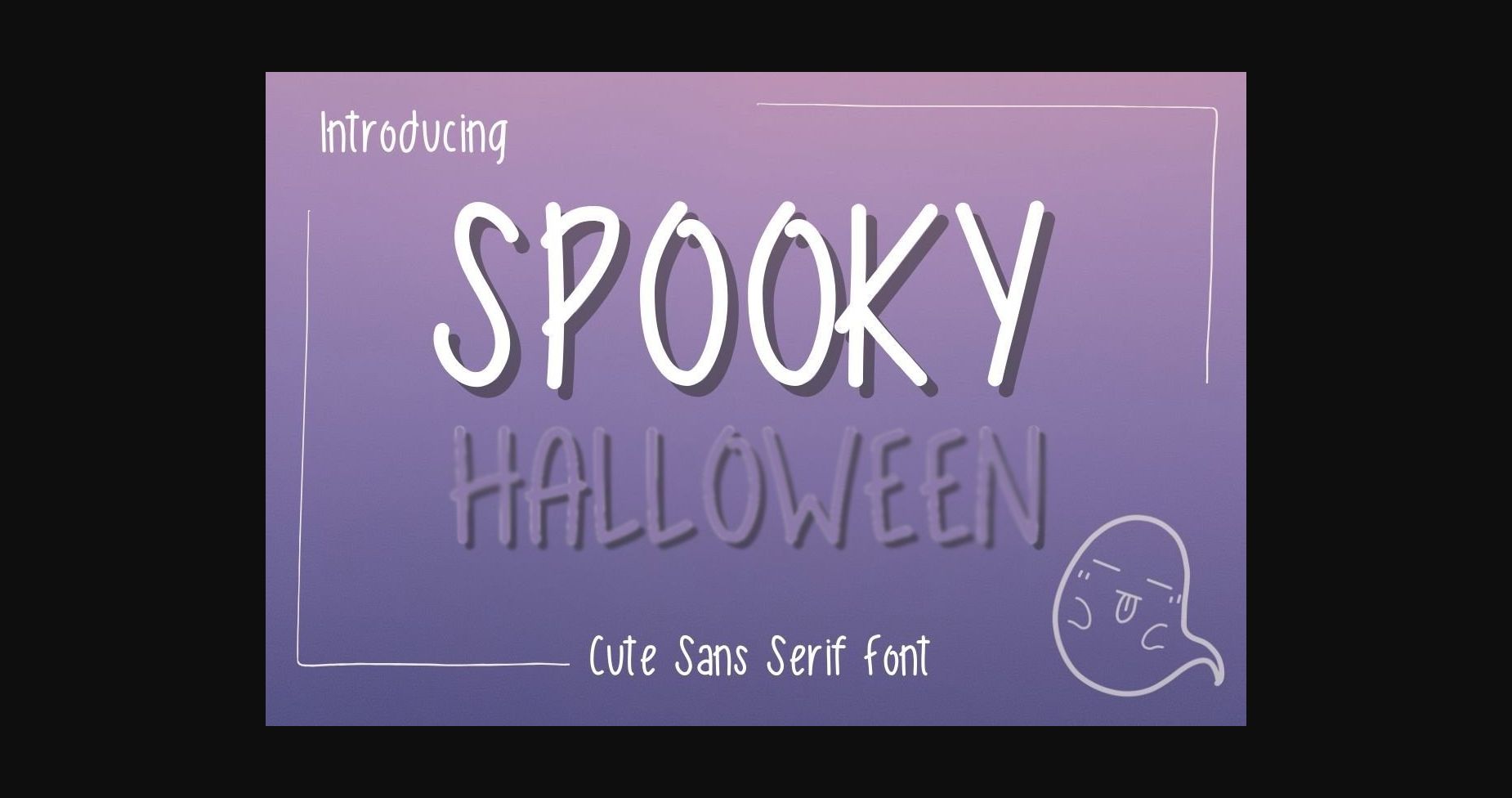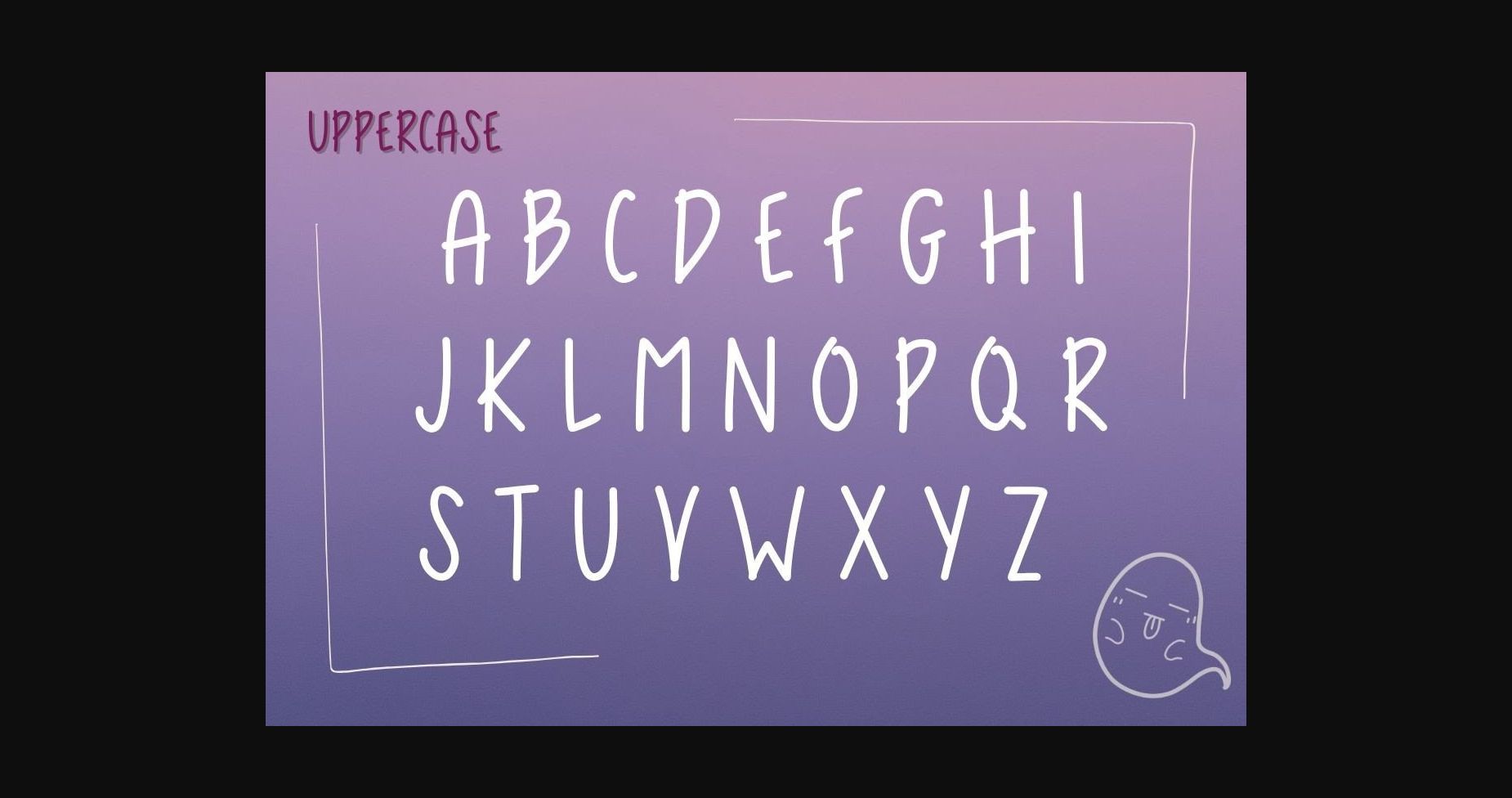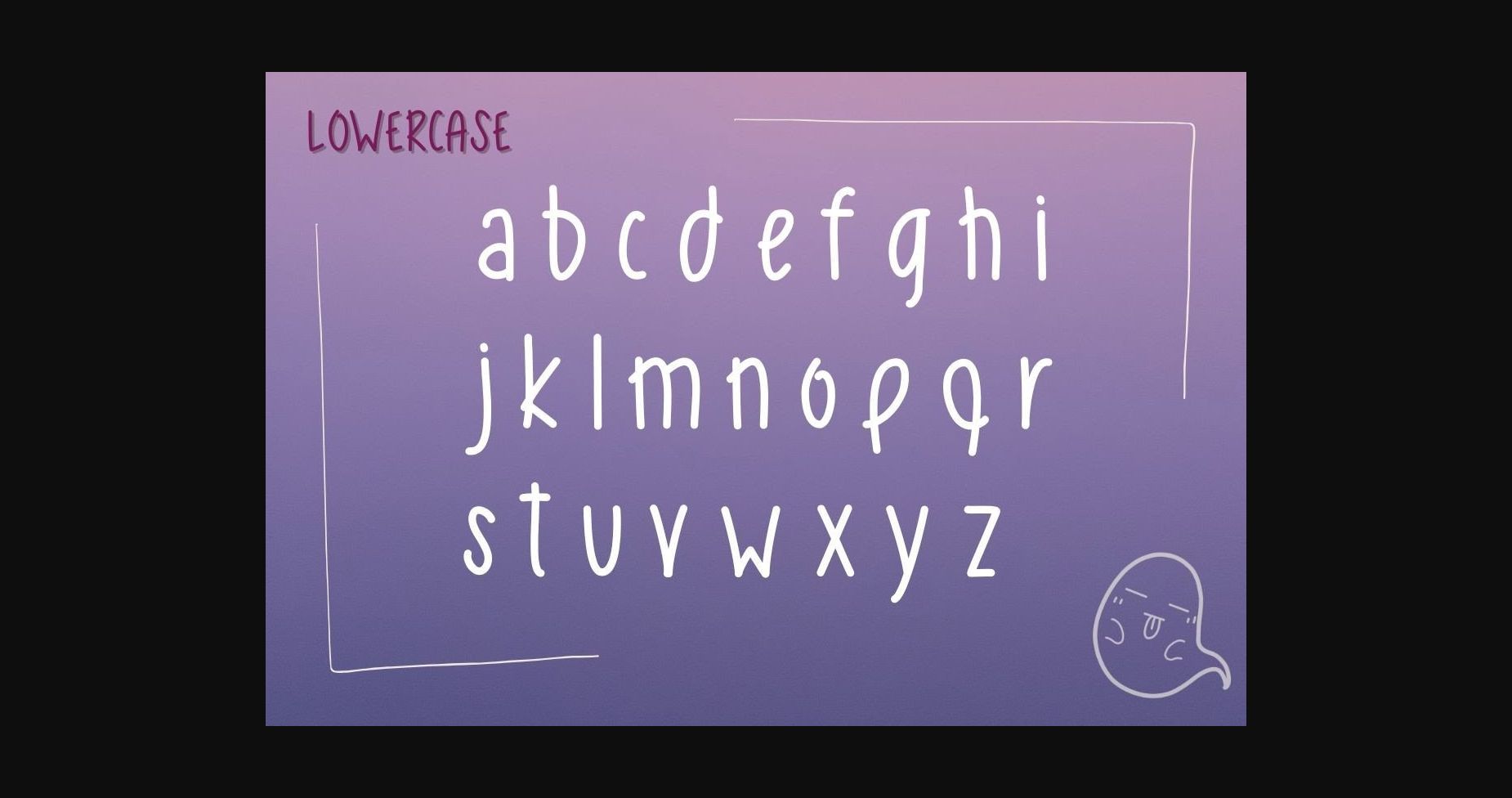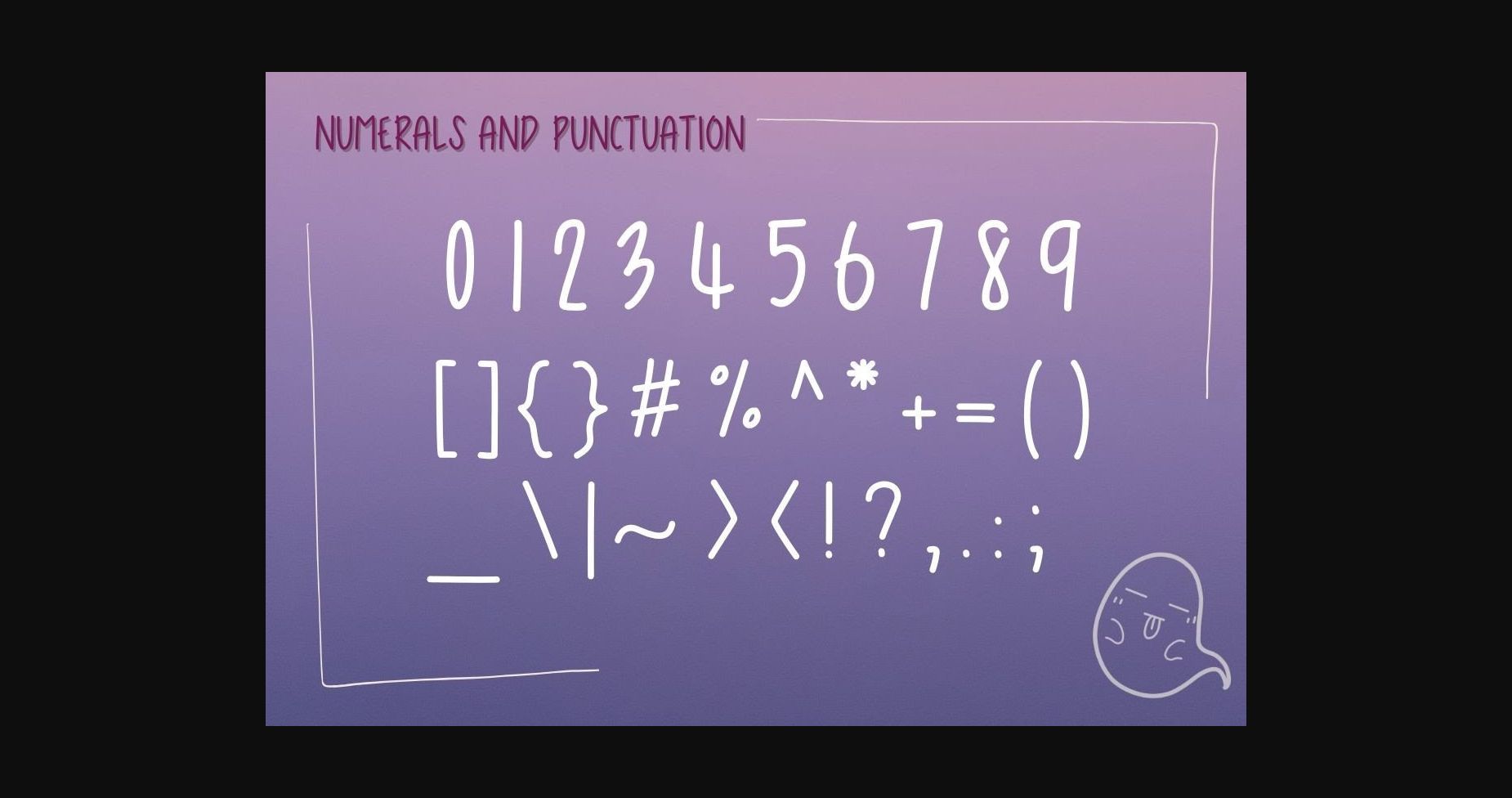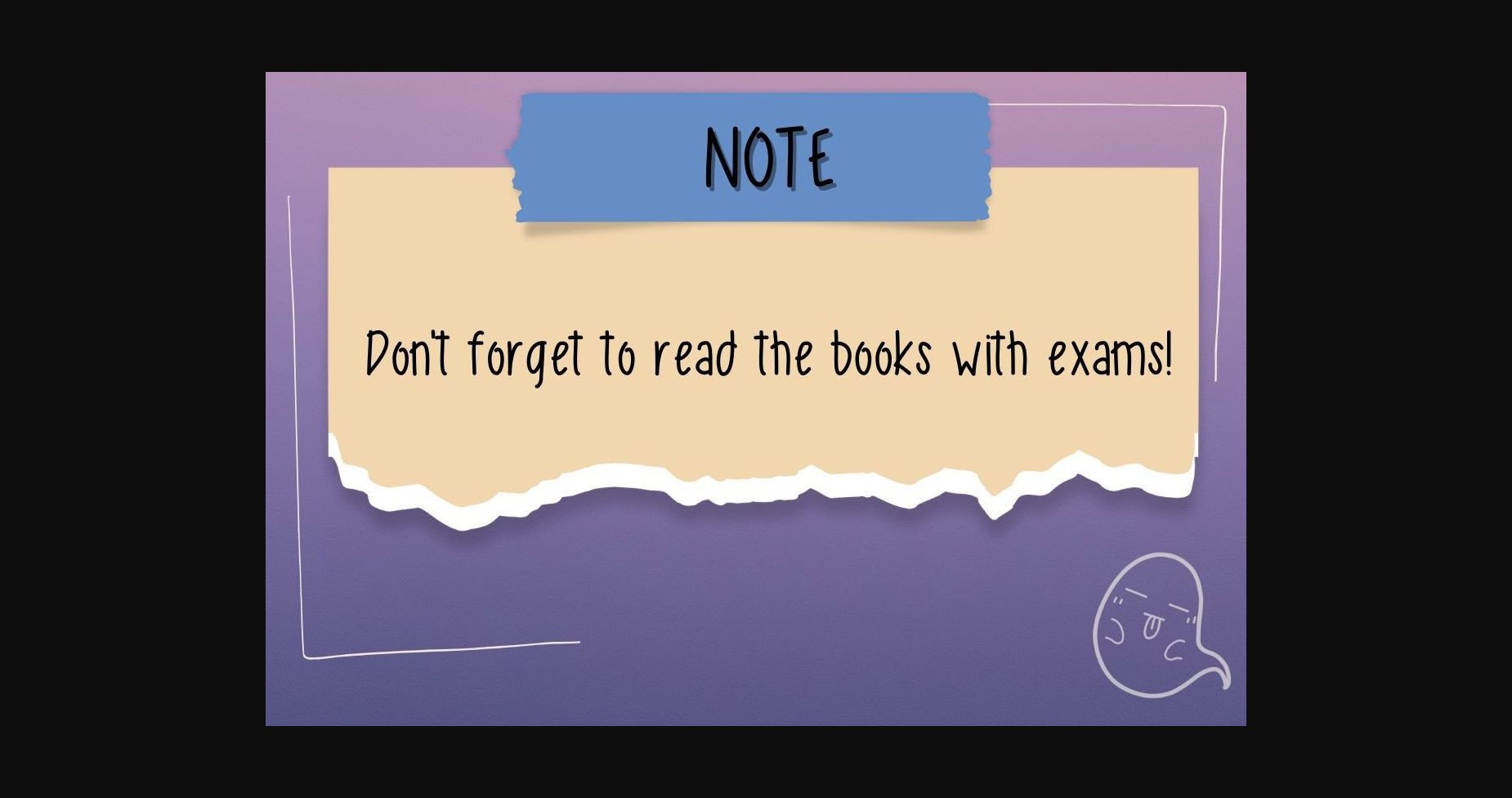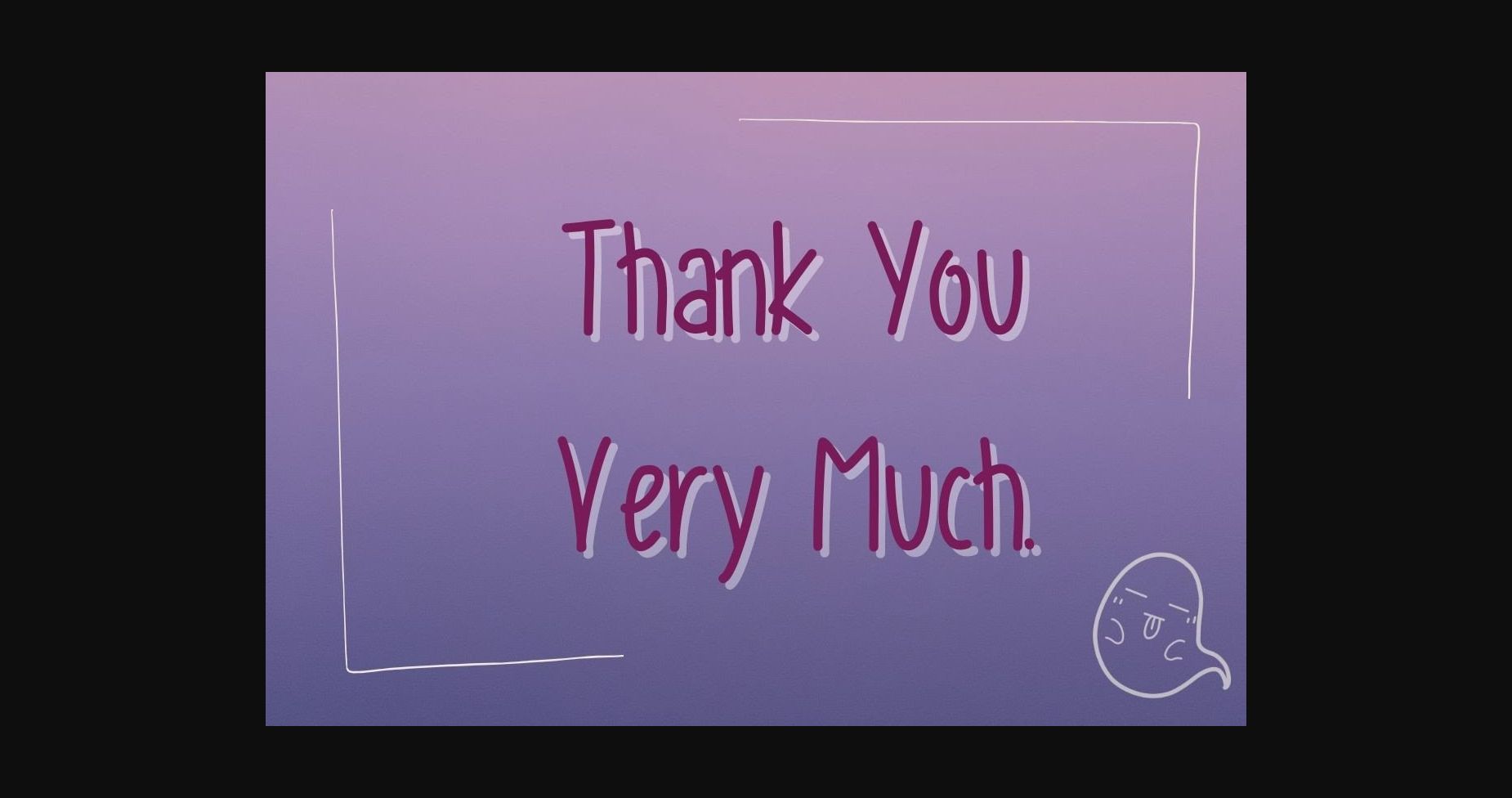
HomeSans Serif FontsSpooky Font Sans Serif Fonts Spooky Font FacebookXPinterestWhatsApp 1 of 8 ... Spooky Font Poster 2... Spooky Font Poster 3... Spooky Font Poster 4... Spooky Font Poster 5... Spooky Font Poster 6... Spooky Font Poster 7... Spooky Font Poster 8... About Spooky Font Spooky is a cute and whimsical sans serif font. Friendly and playful, this font is perfect for a wide range of design ideas. DOWNLOAD NOW People also explored Sack Bag Horitzontal Sketch Qapitaly Font Wallapatra Font Casual Mark Script Font Vintage Font Ruttany Font Fledermaus Rose Quartz Font Whiskey Font 268 0 TagsSpookySpooky Font Previous articleQuitars FontNext articleHanum Font LEAVE A REPLY Cancel reply Comment: Please enter your comment! Name:* Please enter your name here Email:* You have entered an incorrect email address! Please enter your email address here Website: Save my name, email, and website in this browser for the next time I comment. Personal Use Free Castina Personal Use Free Read more about this font Shrag Script Personal Use Free Read more about this font Peachy Rose Personal Use Free Read more about this font Eigha Personal Use Free Read more about this font BLOG Free vs Paid Fonts: Why Investing in Premium Fonts Is Worth It Free vs Paid Fonts: Why Premium Fonts Are Worth It in 2025 The debate of free vs paid fonts continues in the design world. While... Modern Sans-Serif Fonts That Brands Love in 2025 5 Fonts That Will Dominate Design Trends in 2026 Best Fonts for YouTube Videos: Make Your Thumbnails Stand Out